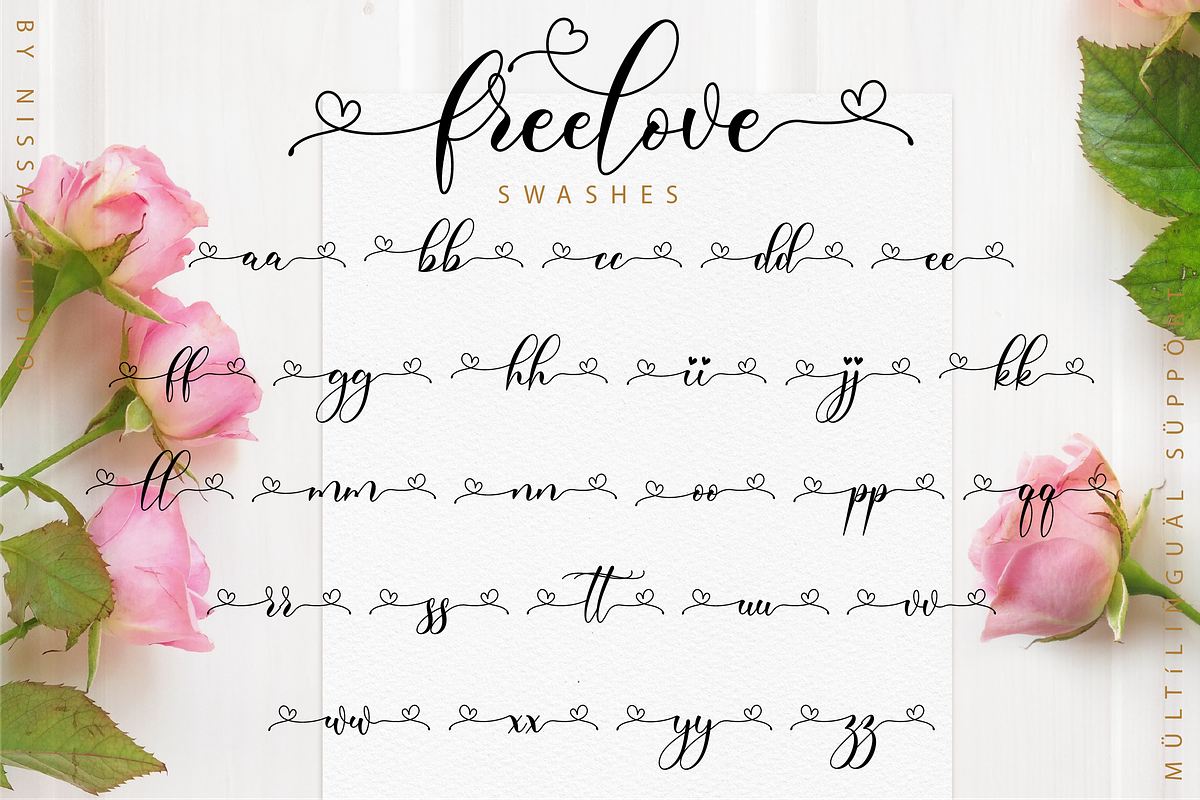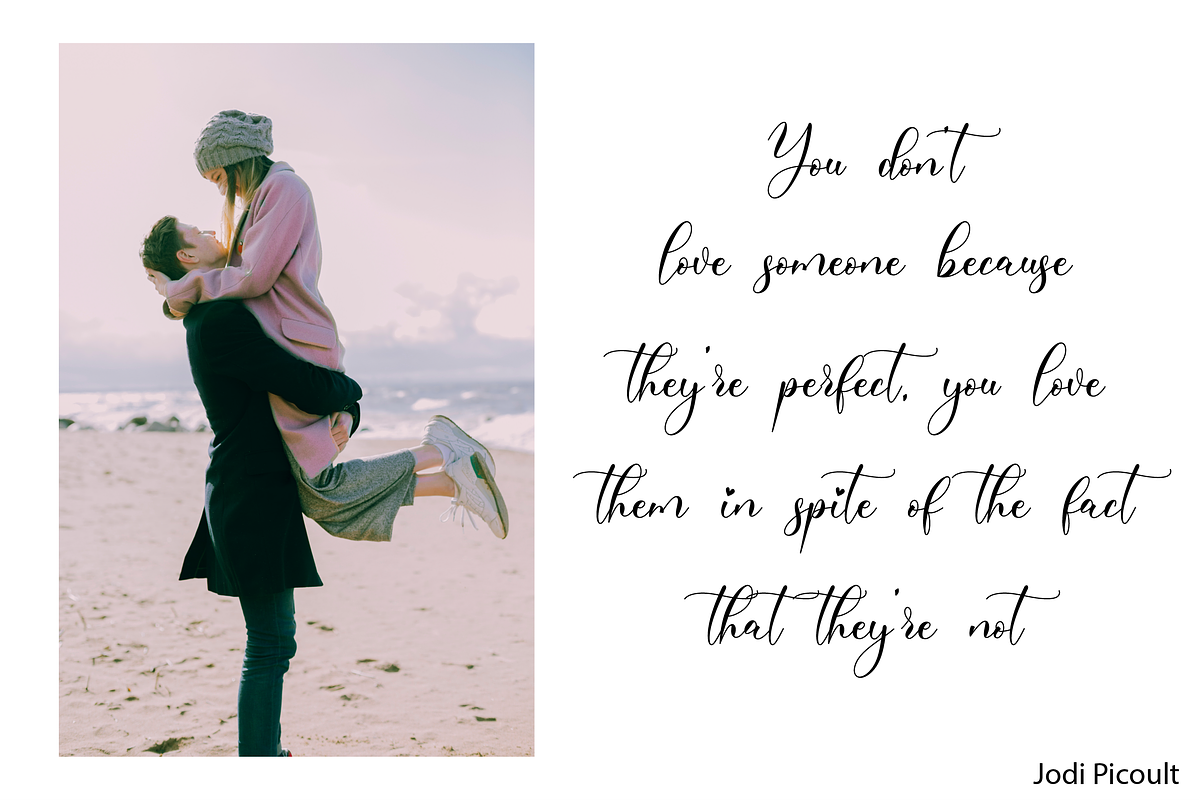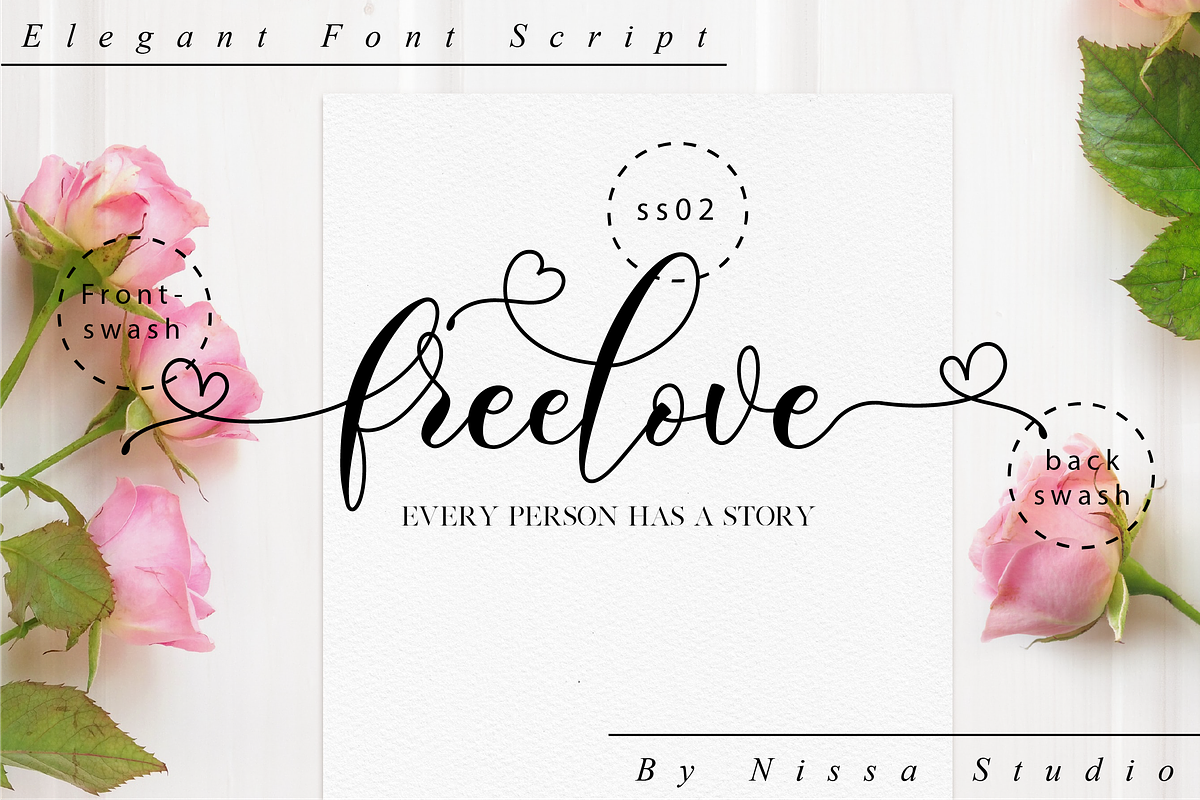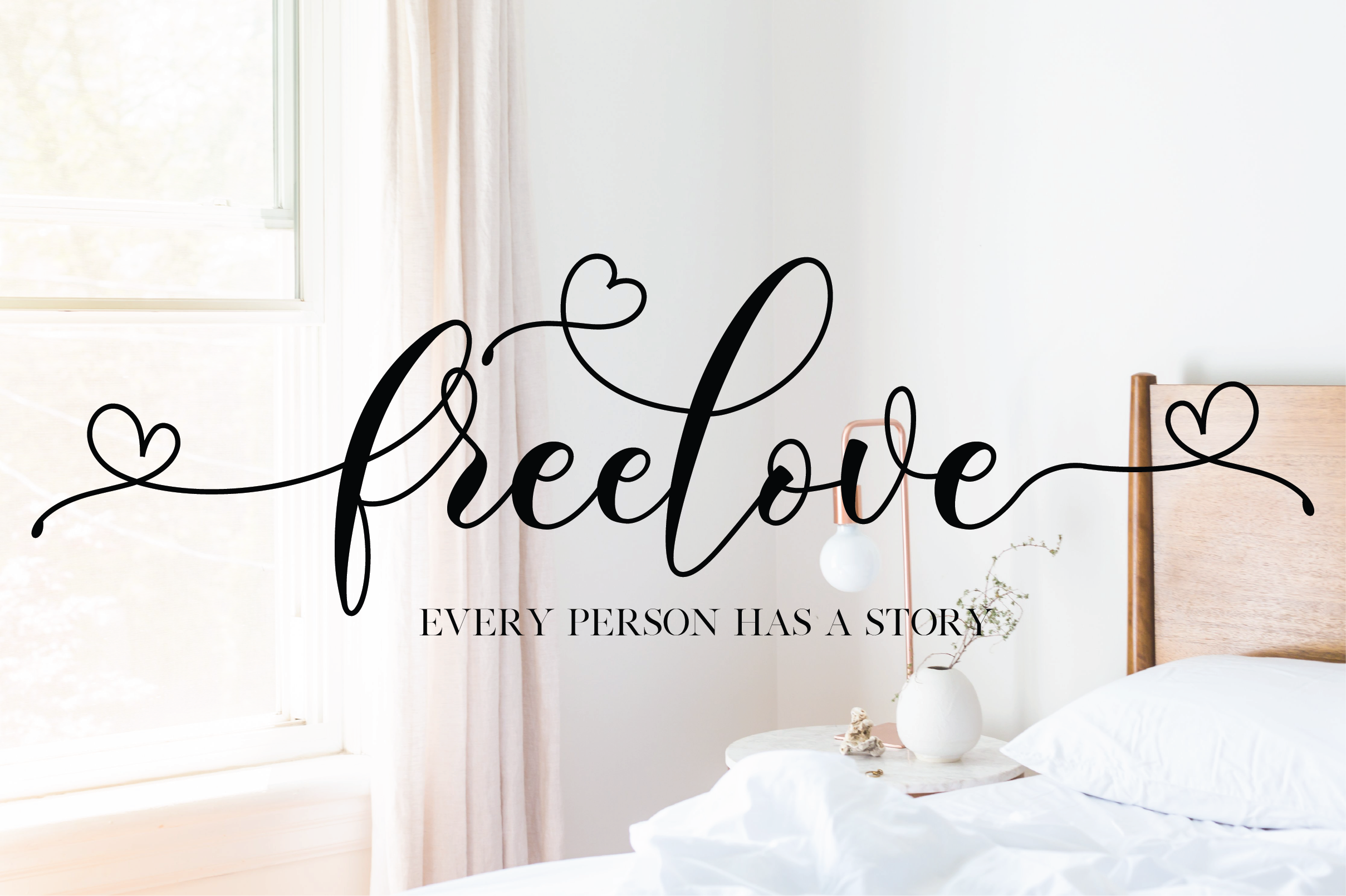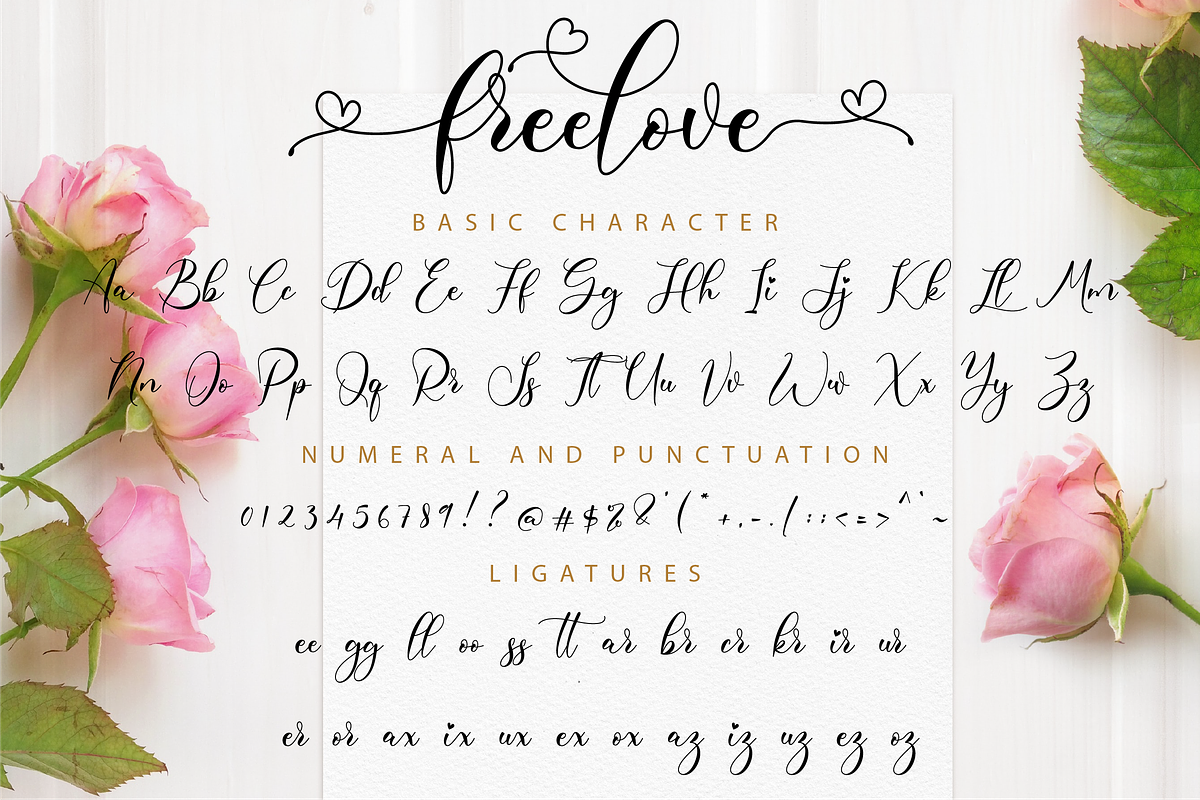
Freelove // Lovely Script Font
Freelove is a beautiful and charming font script that will add a unique flavor to your next craft design.
- Modern Handwritten Font
- Beautiful Swash (Ending tail)
- Beautiful Titling (Beginning tail)
- Special Ligatures